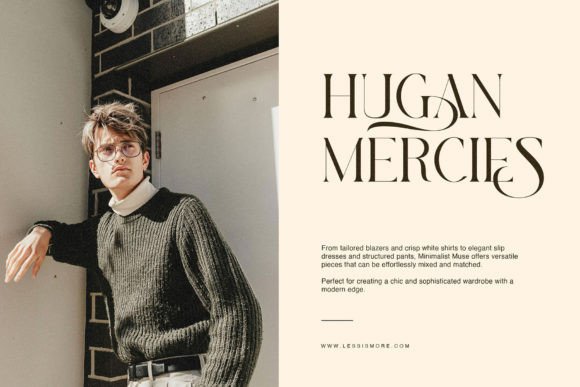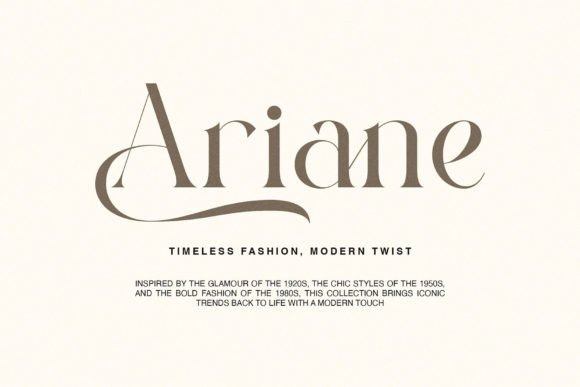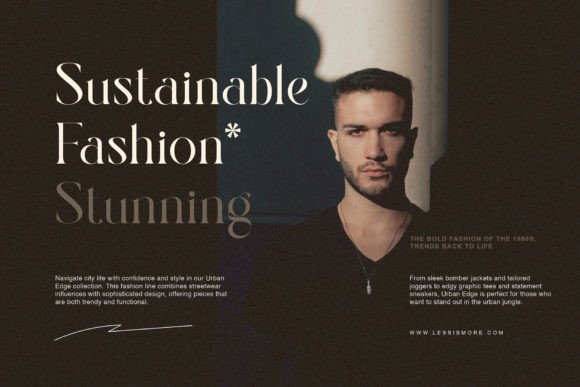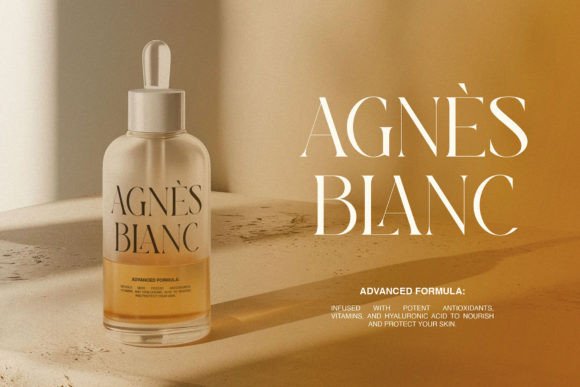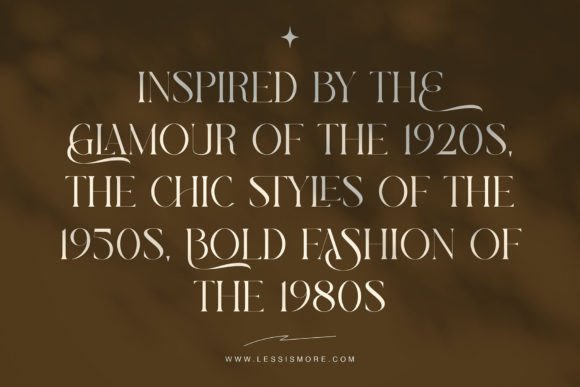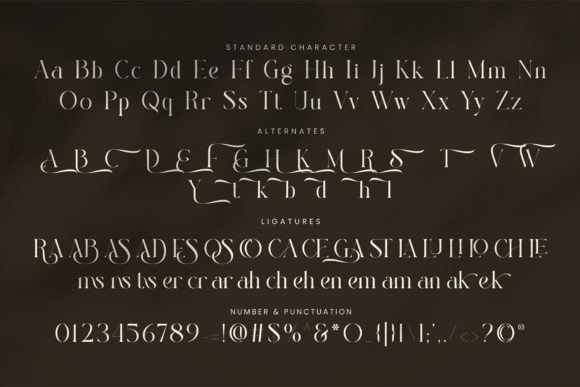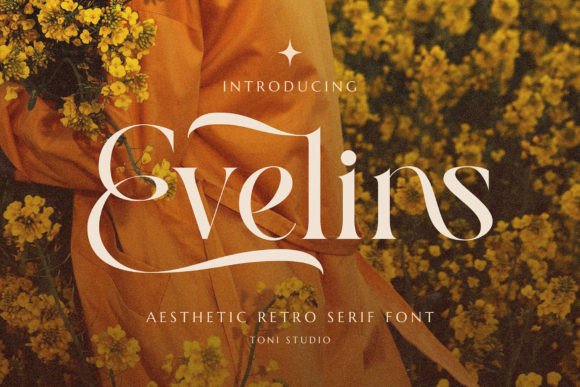
Evelins Font: The Perfect Blend of Modern Elegance and Timeless Romance
In the world of typography, finding the perfect font that captures the essence of your project can be a daunting task. However, if you’re looking for a typeface that exudes modern sophistication while maintaining a touch of undisturbed romance, look no further than Evelins Font. This exquisite serif font is designed to bring a luxurious and unique feel to any project, transforming romantic atmospheres into elegant and alluring letters.
A Versatile Typeface for Diverse Projects
Evelins Font is incredibly versatile, making it the perfect choice for a wide range of projects. Whether you’re a designer working on a logo, a crafter creating handmade cards, or a publisher designing a book, this font is sure to enhance your work. Its elegant appearance is suitable for various applications, including posters, crafts, print templates, packaging, invitations, and product labels. With Evelins Font, you can create unique and special brand expressions that set you apart from the crowd.
The Perfect Choice for Quote Designs and Wedding Projects
One of the standout features of Evelins Font is its ability to add a touch of refinement and sophistication to any design. This makes it an ideal choice for quote designs, where the typography is often the focal point. Additionally, the font’s romantic and elegant feel makes it perfect for wedding projects, such as invitations, programs, and decorations. With Evelins Font, you can create beautiful and memorable designs that will leave a lasting impression.
Comprehensive Character Set for Endless Design Possibilities
Evelins Font features a complete range of upper and lower case letters, punctuation, symbols, numbers, and ligatures. This comprehensive character set provides designers with endless possibilities for creative expression. Whether you’re working on a simple design or a complex project, this font has everything you need to bring your vision to life.
Modern, Stylish, and Classy: The Perfect Companion for Designers
For designers looking for a modern, stylish, and classy touch, Evelins Font is the perfect companion. Its elegant appearance and versatile nature make it an excellent choice for a wide range of projects. With Evelins Font, you can add a touch of sophistication and refinement to your designs, setting you apart from the competition.
Key Features of Evelins Font
• Serif font with a luxurious and unique feel
• Perfect blend of modern moments and a touch of undisturbed romance
• Versatile and suitable for a wide range of projects
• Comprehensive character set, including upper and lower case letters, punctuation, symbols, numbers, and ligatures
• Ideal for quote designs, print templates, packaging, invitations, and product labels
• Perfect for wedding projects and advertising efforts
In conclusion, Evelins Font is a stunning serif font that offers the perfect blend of modern elegance and timeless romance. Its versatile nature, comprehensive character set, and elegant appearance make it an excellent choice for designers and crafters looking to add a touch of sophistication and refinement to their projects. Whether you’re working on a logo, a book, or a wedding invitation, Evelins Font is sure to bring a luxurious and unique feel to your design.